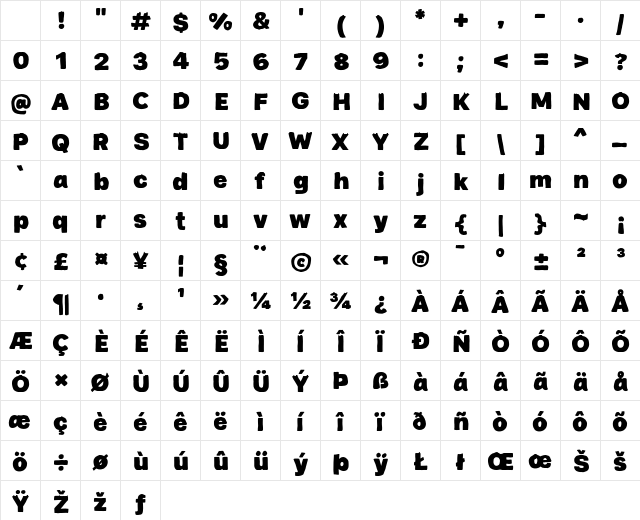
Vintage Vibes wears its vintage influences proudly, with letterforms that recall mid-century signage, classic packaging, and nostalgia-driven design.
Font Pairing: Combine Vintage Vibes with a simple slab or neutral sans - period-accurate companions reinforce the vintage feel without competing for attention.
Pro Tip: Lean into Vintage Vibes's period character by pairing it with aged paper textures, muted colour palettes, and vintage illustration styles.